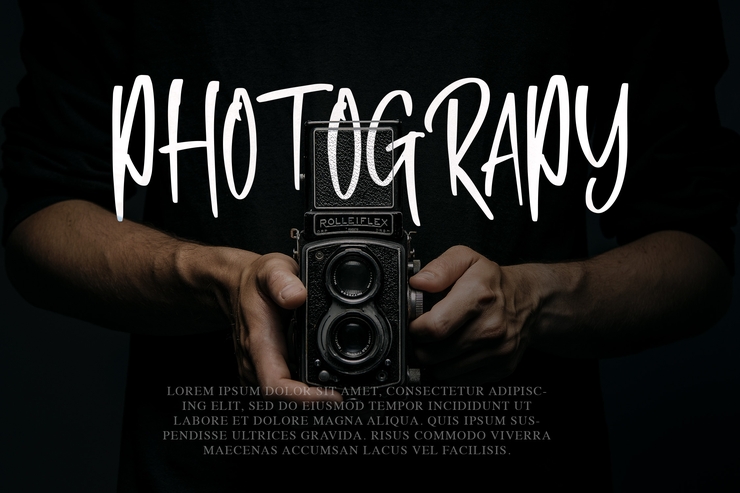
Rosta Bosttania Stylish Elegant English Decorative Font
Rosta Bosttania is an exclusive decorative English font with delicate and well‑balanced letter structures. Designed with smooth strokes, graceful curves and distinctive glyph details, it delivers an elegant, high‑end and artistic visual effect. This stylish typeface blends modern minimalist aesthetics with classic decorative features, suitable for brand logos, fashion posters, web headlines, e‑commerce banners, product packaging, social media graphics and UI decorative text. Complete with full uppercase and lowercase letters, it is fully scalable and easy to edit colors, sizes and layouts without losing fine details. Ideal for graphic designers, creative studios and commercial branding projects to create unique premium visual styles for various design works.Free for Commercial Use / No Copyright